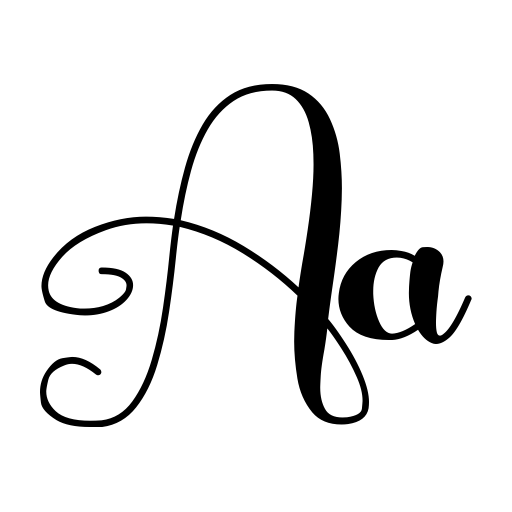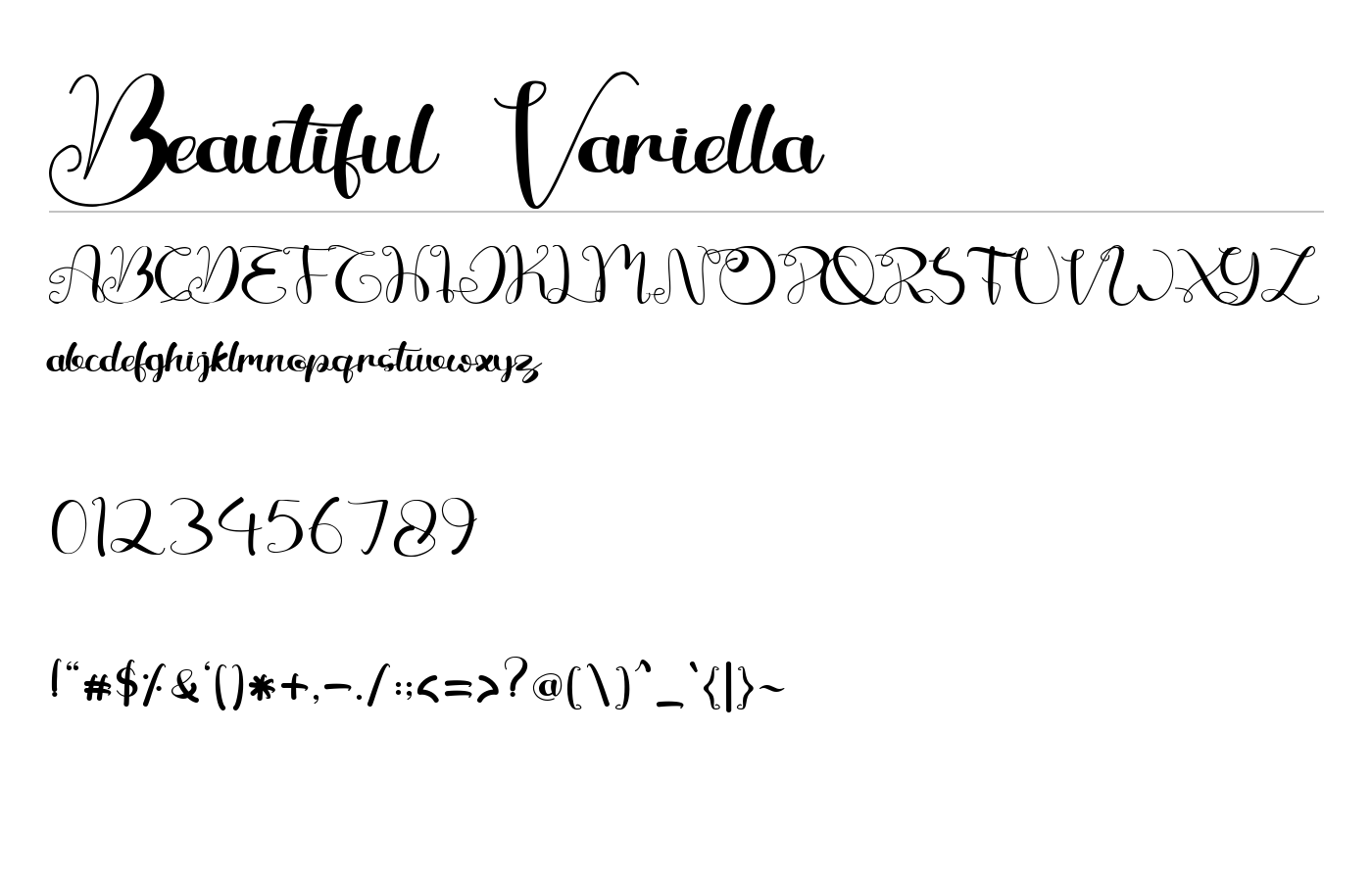
Beautiful Variella is an elegant script font featuring a combination of flowing, decorative uppercase letters with elaborate swirls and bold, smooth lowercase characters that create a refined yet approachable look. Its high contrast between thick and thin strokes and playful curves make it perfect for stylish invitations, branding, and headlines where a touch of sophistication and charm is desired. This font works well for fashion, luxury designs, and creative projects that benefit from a blend of modern flair and classic handwritten grace.
Beautiful Variella Font
About Beautiful Variella Font
| Font family | Beautiful Variella Font |
| Languages supported | Latin, Symbols, Greek, Thai |
| Designer | Letterfand |